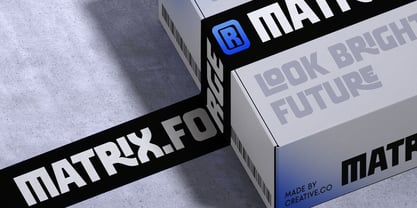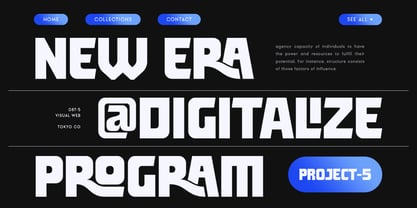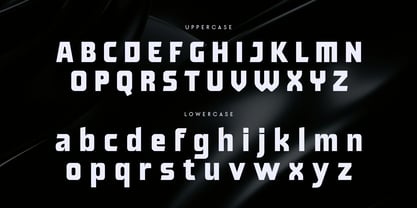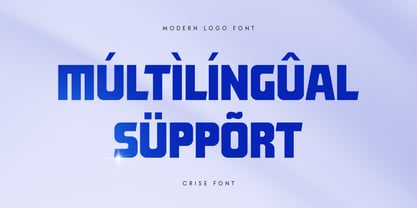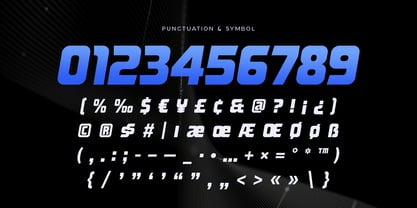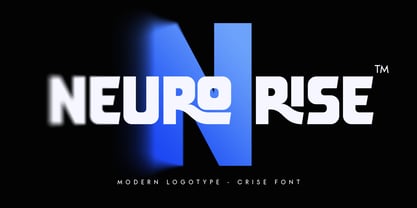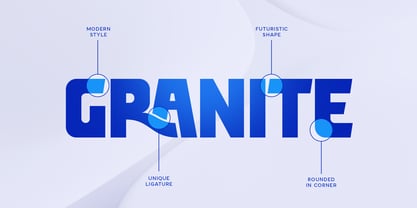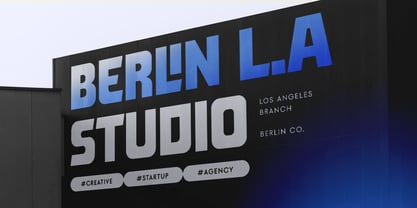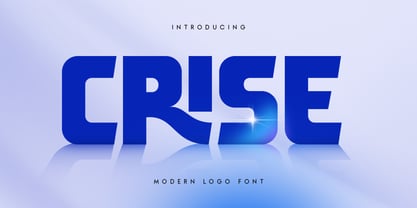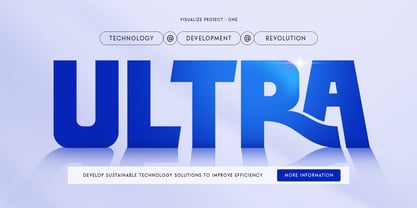
Crise SS
by Sensatype Studio
The Crise SS Font Family was designed by Zamroni Hamzah and published by Sensatype Studio. Crise SS contains 2 styles and family package options. More about this family
CRISE SS is a modern logo font designed to elevate your brand with its sleek and professional design. Inspired by contemporary aesthetics, CRISE SS combines clean lines and elegant curves to create a font that is both stylish and versatile. Perfect for logo design, branding materials, and any project that requires a modern touch, CRISE SS ensures your designs are both eye-catching and memorable. The story behind CRISE SS is rooted in the need for a font that captures the essence of modernity while providing flexibility for various design needs. Crafted with precision, CRISE SS is the result of meticulous design work aimed at creating a unique and dynamic font that stands out in any context. Whether you are working on a logo, website header, or advertising campaign, CRISE SS offers the perfect balance of elegance and functionality. Its modern design makes it suitable for creative professionals looking to add a touch of sophistication to their projects. With CRISE SS, you can achieve a polished and contemporary look that enhances the visual appeal of your brand. Elevate your designs with CRISE SS and make a lasting impression with this modern logo font.
CRISE SS Modern logo font ready with:
• Any options to get creative variations with unique letters
• Ready with Lowercase and Uppercase characters
• Modern design & Versatile for various projects
• Ideal for logos and branding
• Stylish and professional will enhances visual appeal
Discover the elegance and versatility of CRISE SS, the modern logo font that transforms your brand's identity.
Designers: Zamroni Hamzah
Foundry: Sensatype Studio